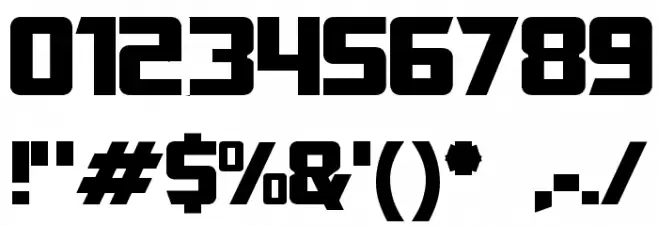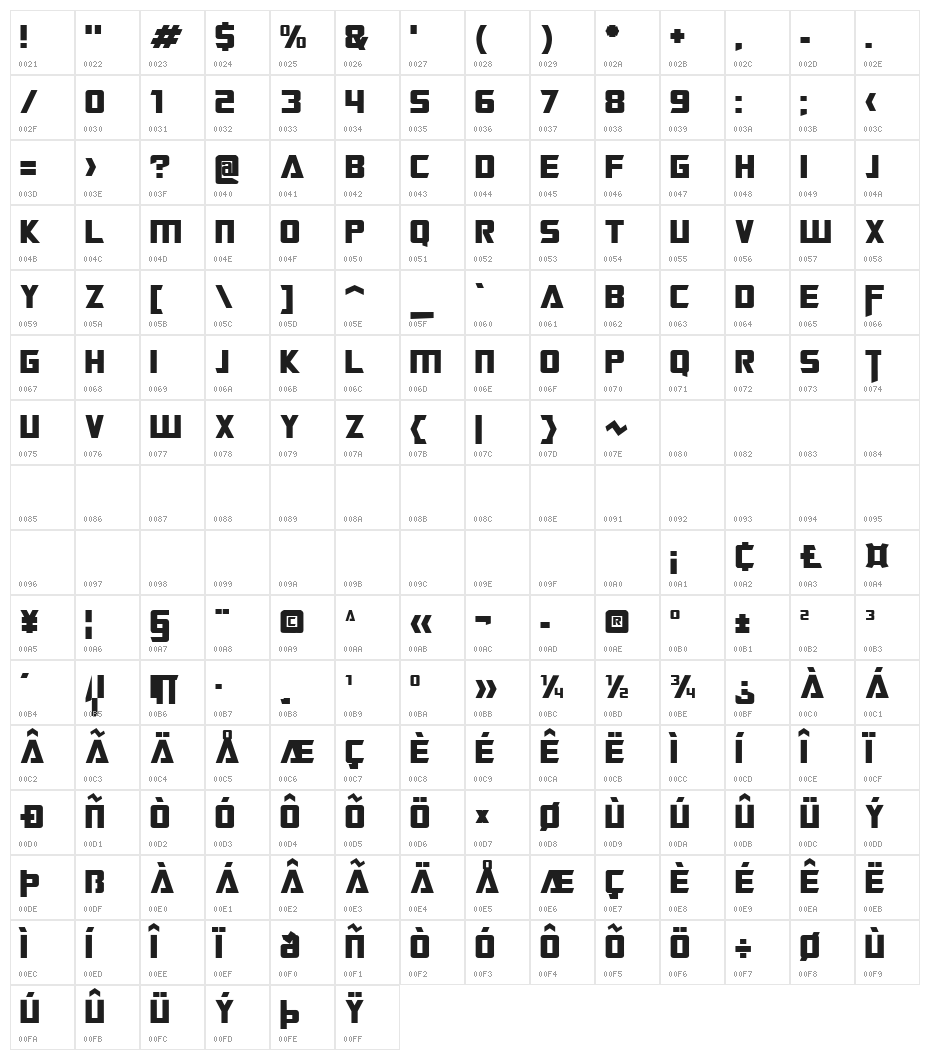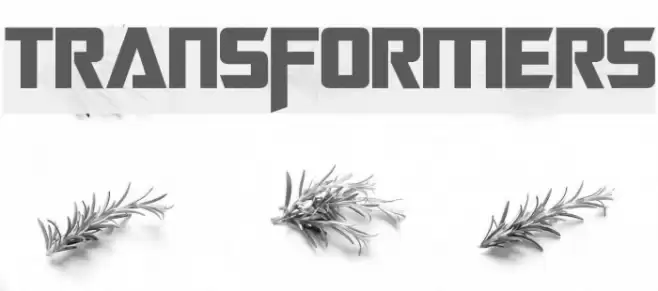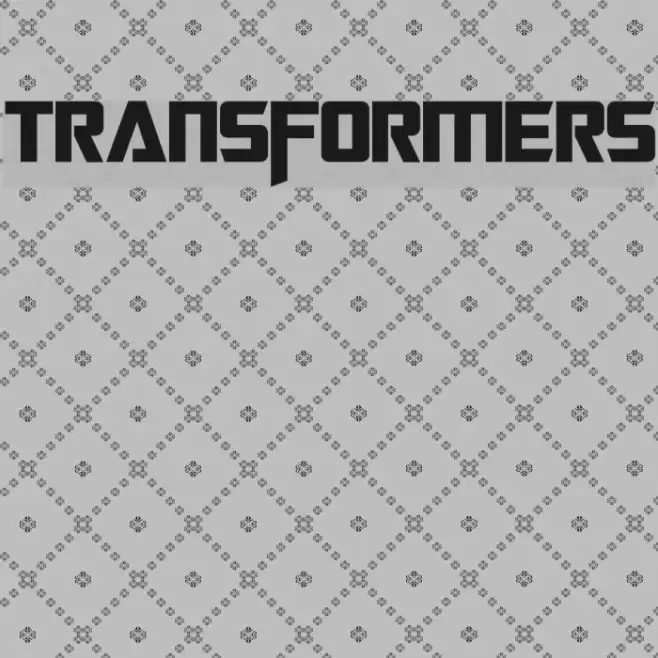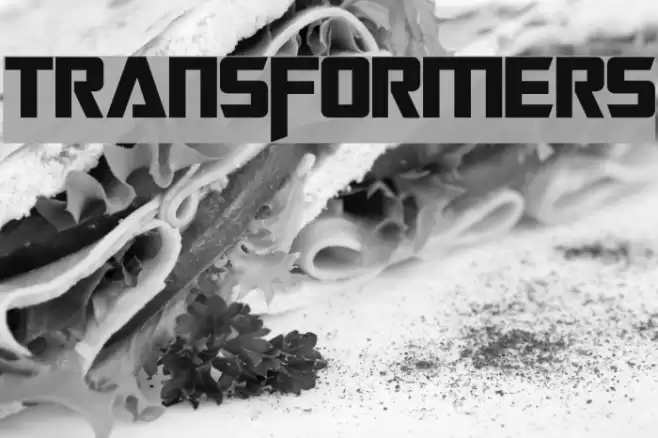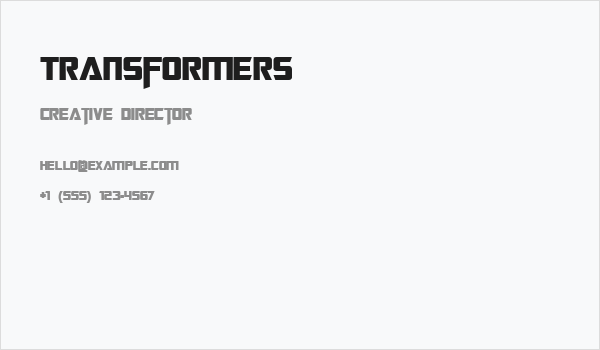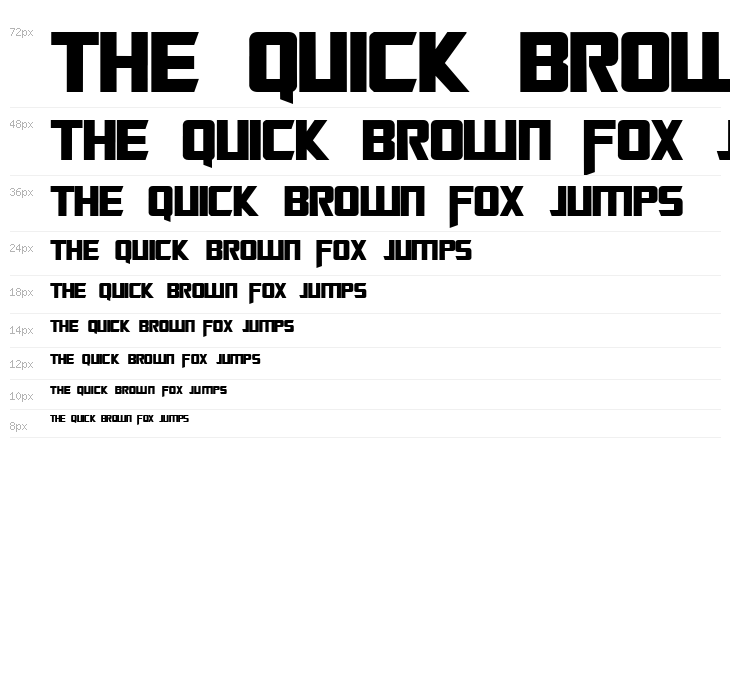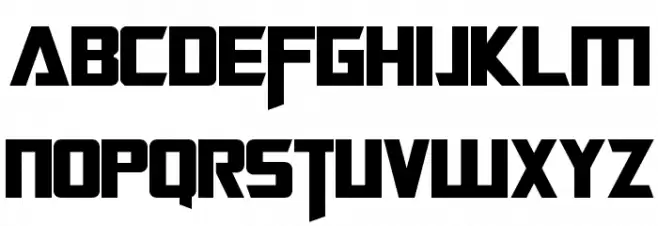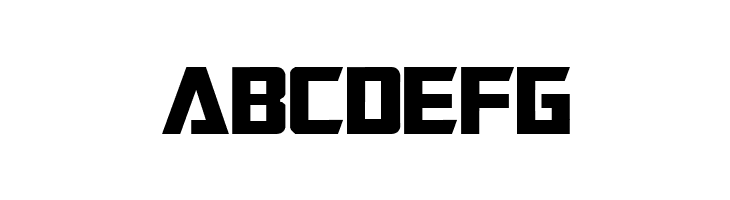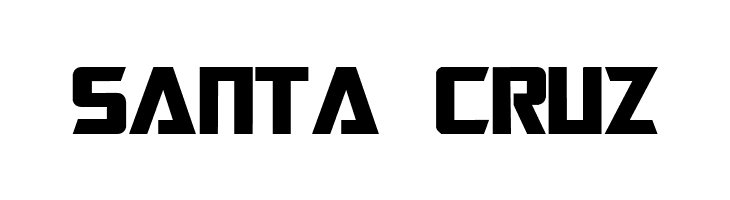
Transformers Font
Transformers Description
This font features a bold, angular design with a futuristic and mechanical aesthetic. The characters are constructed with sharp edges and geometric shapes, giving them a strong, industrial feel. The uppercase letters are particularly striking, with a consistent height and width that create a uniform appearance. The numbers and special characters maintain the same boldness and angularity, ensuring a cohesive look across all glyphs. This font is highly legible and impactful, making it suitable for attention-grabbing designs.
Proposed ProjectsIdeal for sci-fi themed projects, movie posters, video game titles, and branding for technology companies.